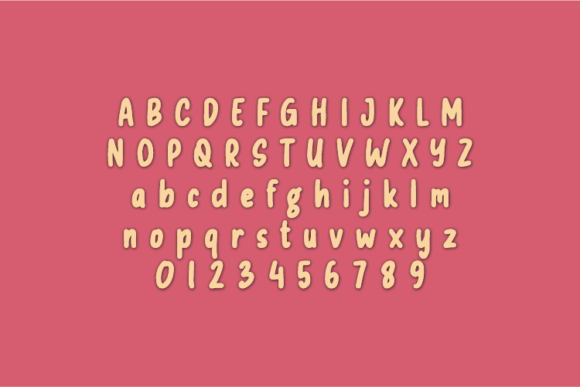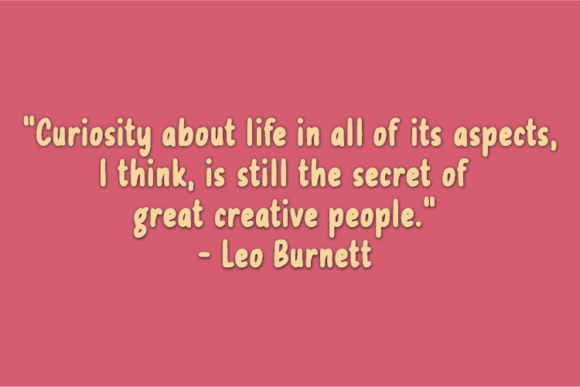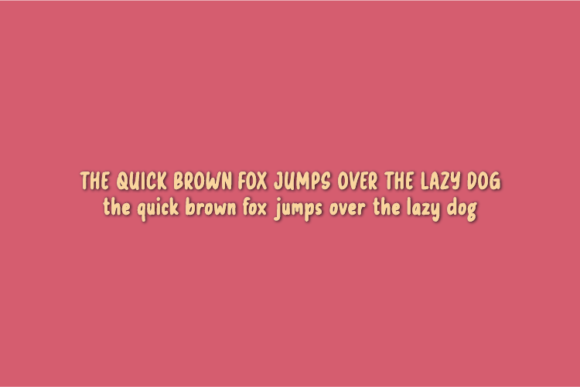
Introduction to Peonella Font
Peonella is an adaptable and clean handwritten font.
Key Features of Peonella Font
Why Choose Peonella Font?
Peonella Font offers exceptional quality and versatility, making it a valuable addition to your design toolkit. Whether you’re creating for personal projects or commercial use, Peonella Font delivers professional results.